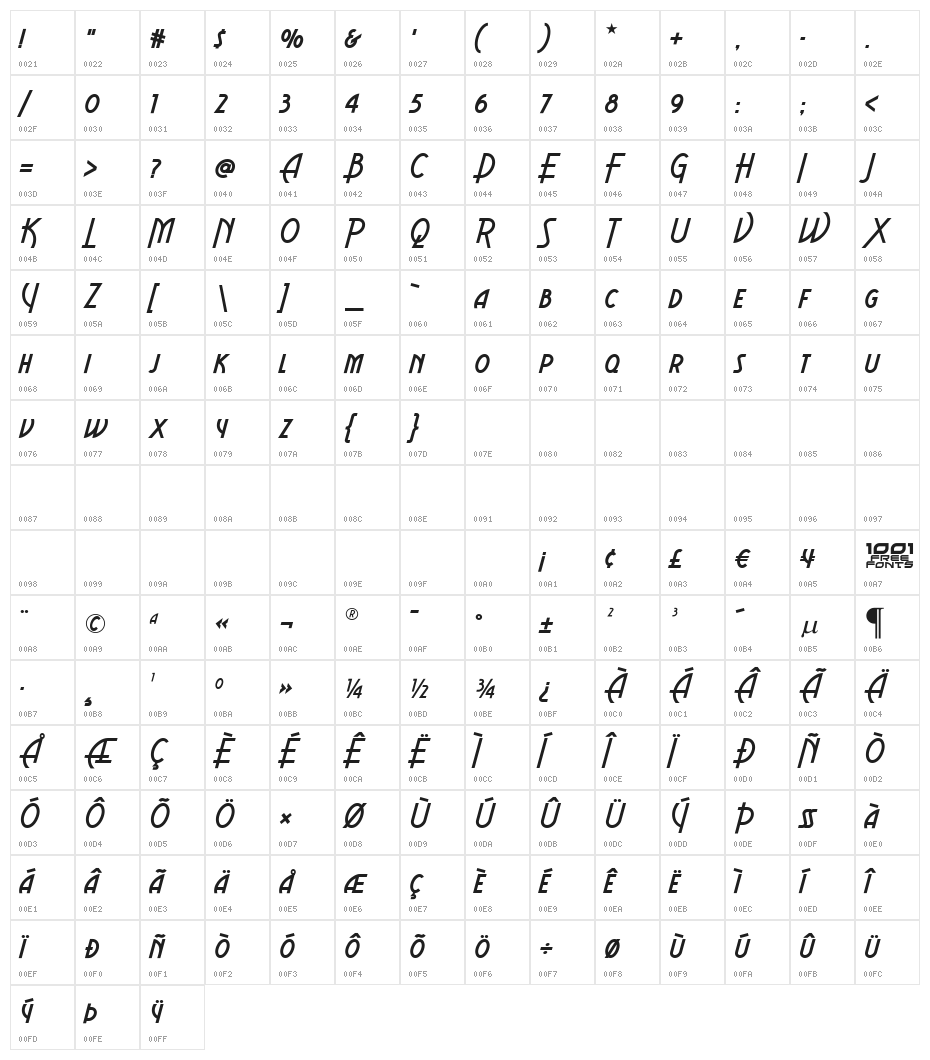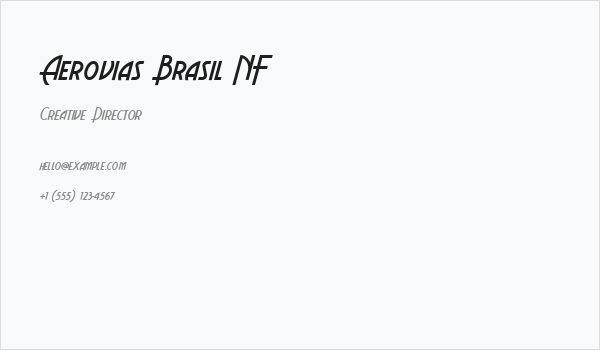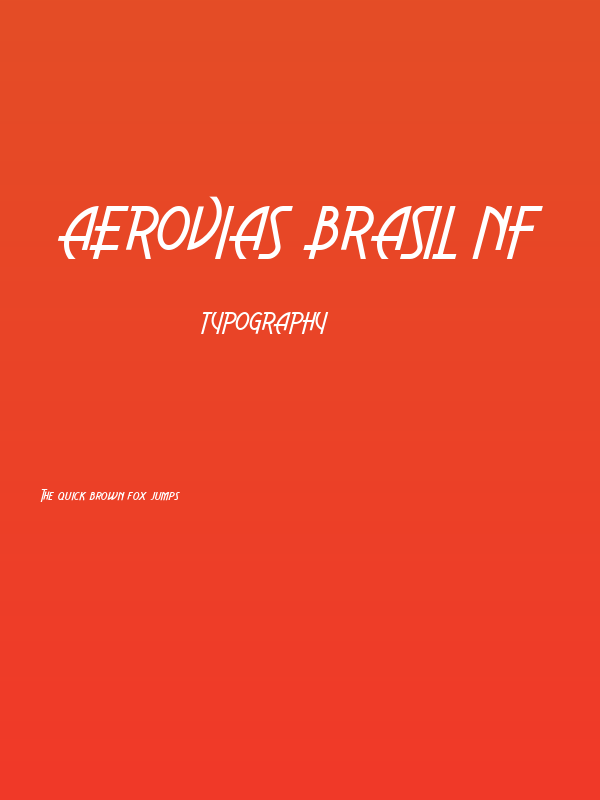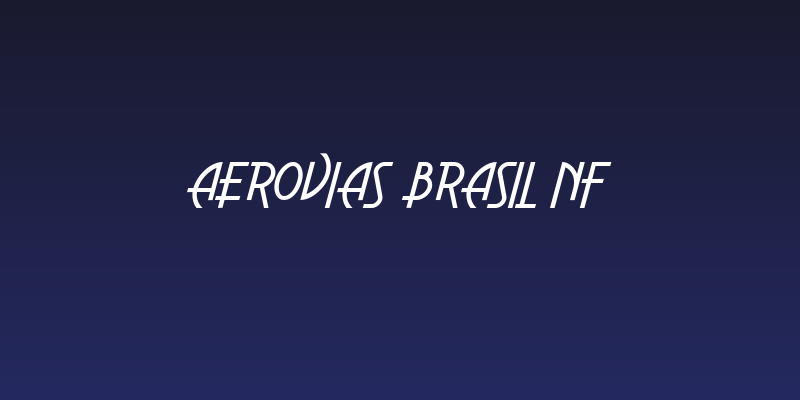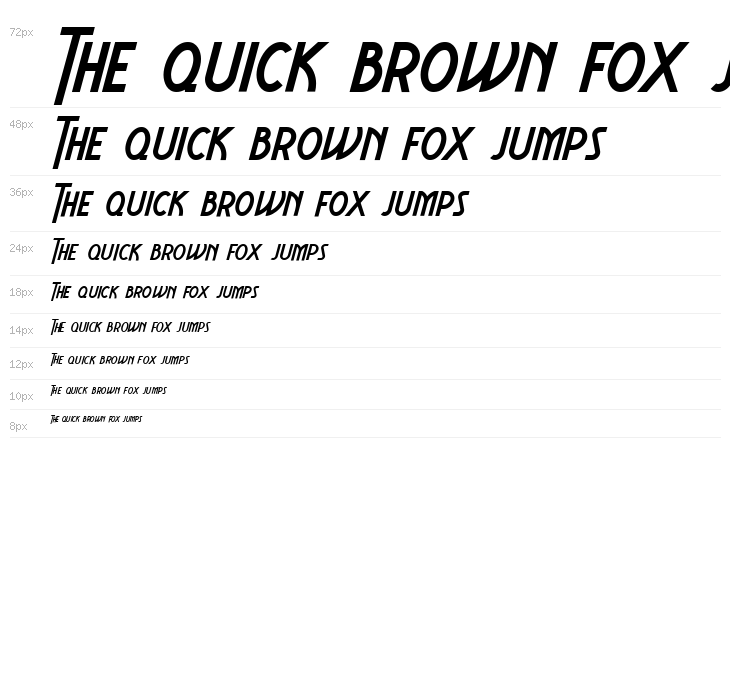
Aerovias Brasil NF Font
Aerovias Brasil NF Description
This font features a dynamic and modern design with a distinct slant, giving it a sense of motion and energy. The characters are bold and slightly condensed, with sharp angles and clean lines that enhance its contemporary appeal. The uppercase letters are particularly striking, with a unique flair that makes them stand out. The numerals and special characters maintain the same stylistic elements, ensuring consistency across all glyphs. This font is well-suited for projects that require a bold and modern aesthetic, such as branding, advertising, and editorial design.
| Proposed Projects | Ideal for branding, advertising, editorial design, and any project needing a bold, modern look. |